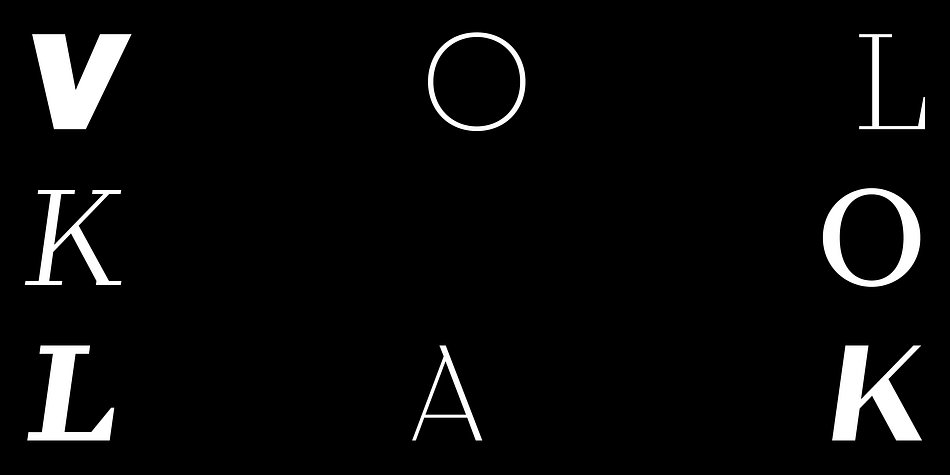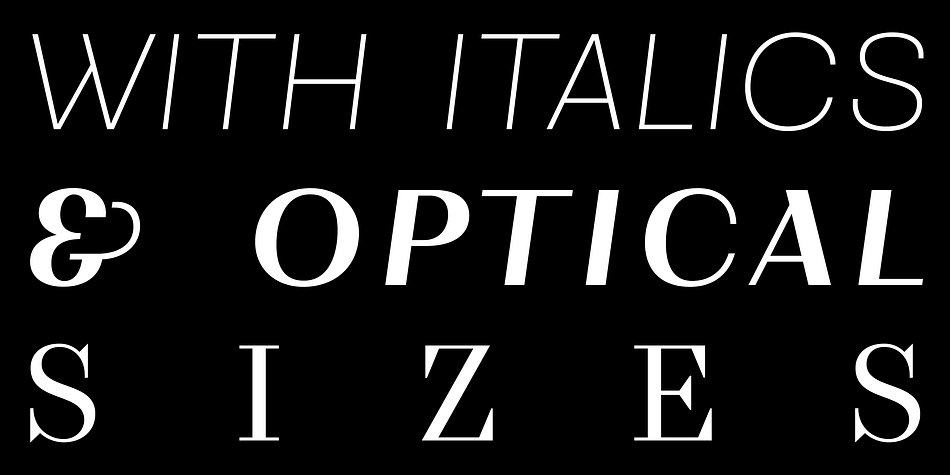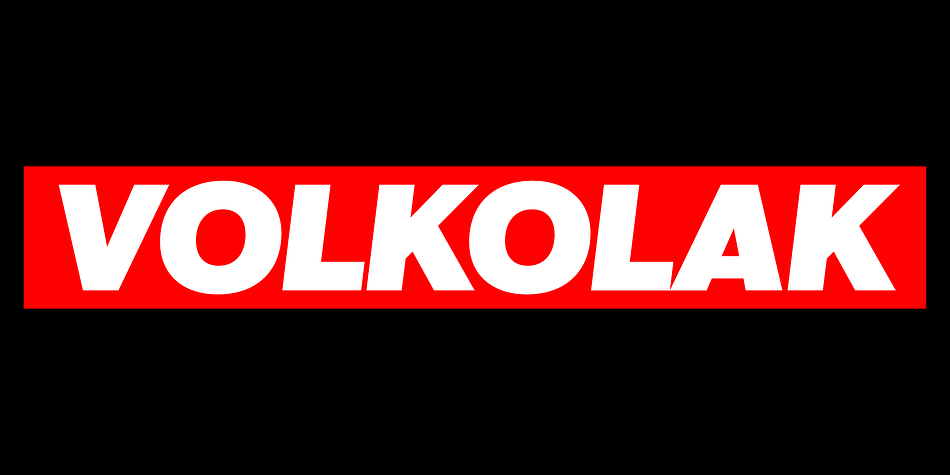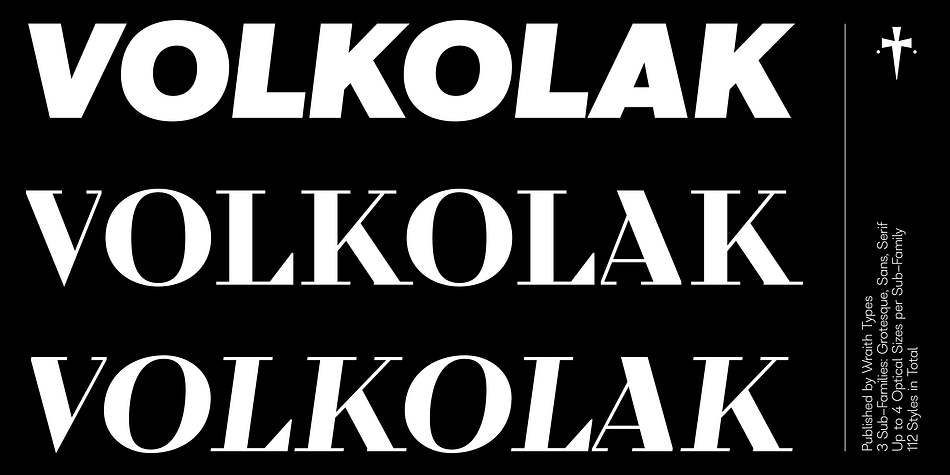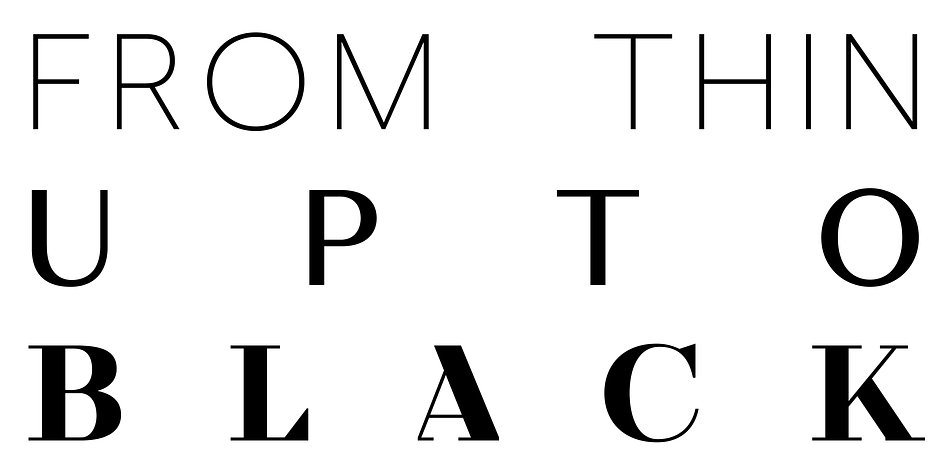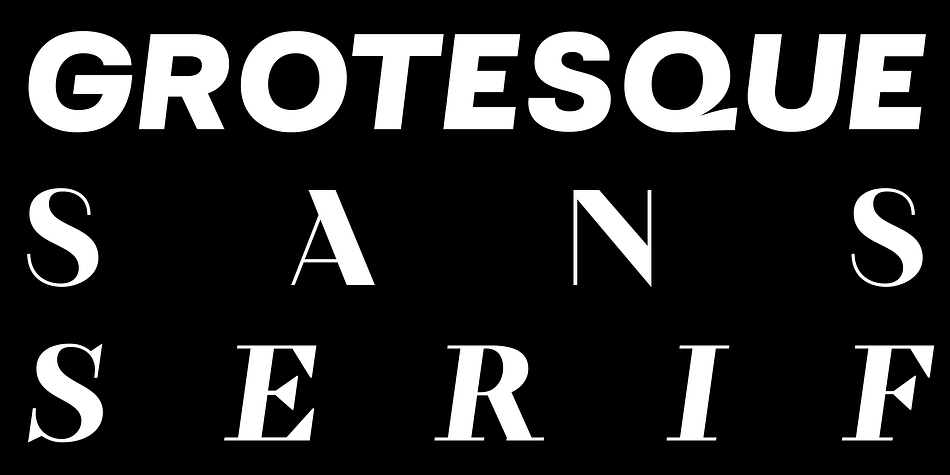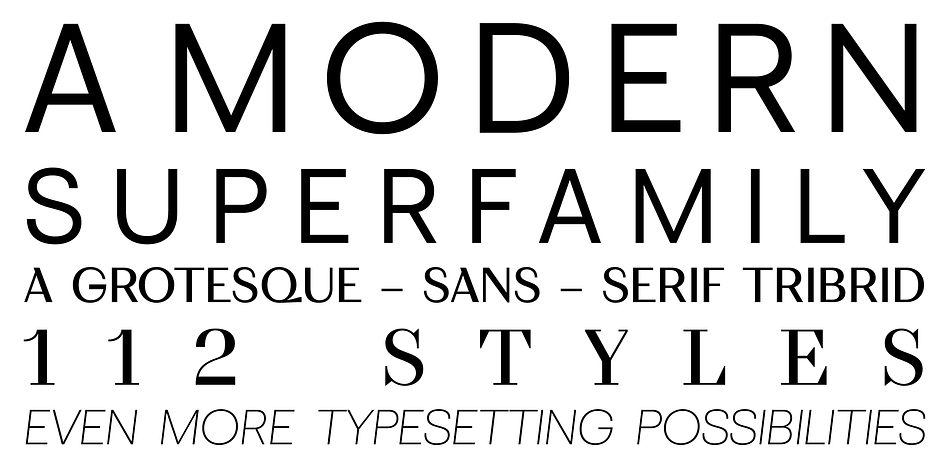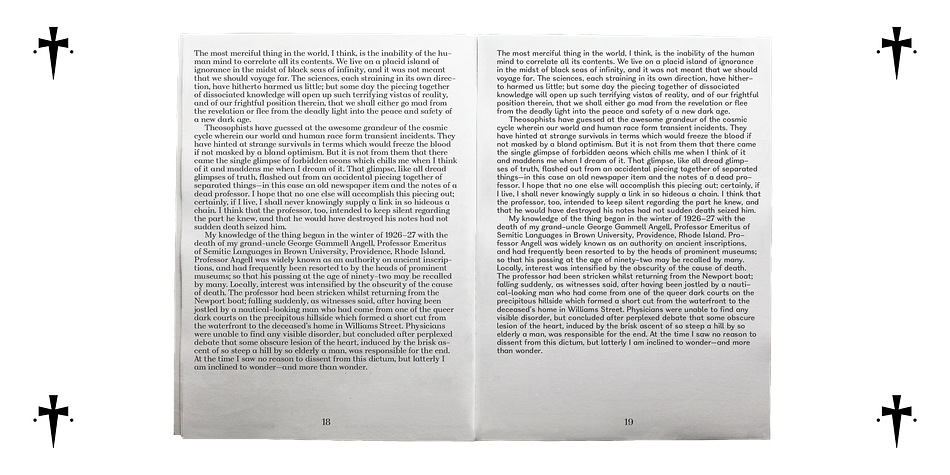
Designed by Guillame Jean-Mairet, WT Volkolak is a multiple classification font family. This typeface has one hundred and twelve styles and was published by Wraith Types.
Volkolak is the ultimate serif-sans-grotesque tribrid, its numerous cuts will give you many options represent a typesetter’s dream!
Designed as one, it offers a serif, a contrasted sans serif and a grotesque style. The numerous typesetting options offered this way gives it a ton of usability and functionality in many different mediums, editorial design, books, magazines, posters, visual identity, web design… You won’t find a project in which you can’t use this true workhorse superfamily!